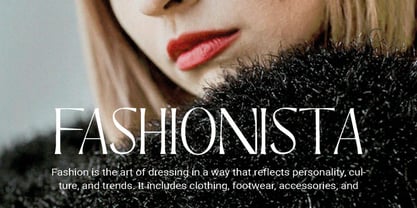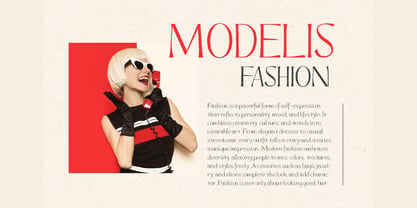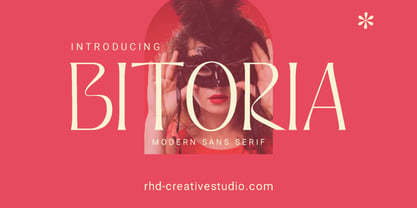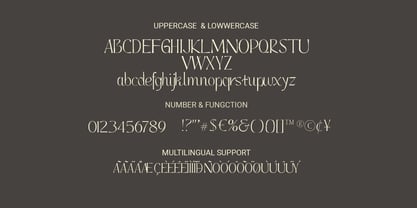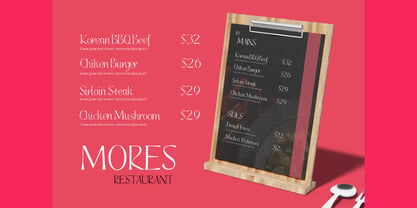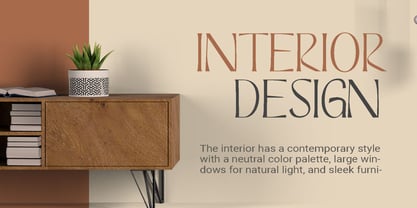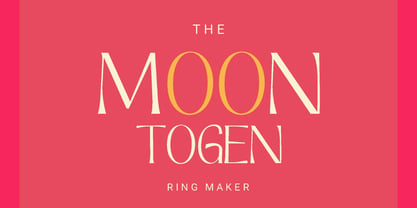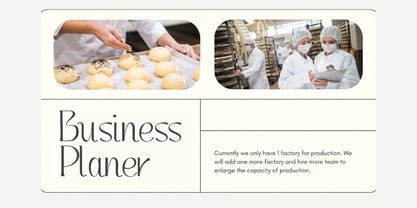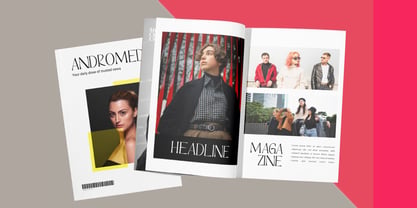
Bitoria
La famille de polices Bitoria a été conçue par et publiée par RHD Creative. Bitoria contient 2 styles et options de package familial. En savoir plus sur cette famille
Hello everyone, I would like to introduce BITORIA - Modern Sans Serif Font. BITORIA - Modern Sans Serif Font with Handmade character. BITORIA - Modern Sans Serif Font, Modern font to make your design project stand out! BITORIA a perfectly choice for any creative endeavor, creating, modern, chic, lifestyle design such as logotype, title, cover, branding, invitations, wedding designs, display and magazine, social media posts, advertisements, printed quotes, product packaging, corporate brand, product designs, labels, photography, watermarks, special events and any other project with modern touch. Thank you for your purchase! Hope you enjoy with our font!